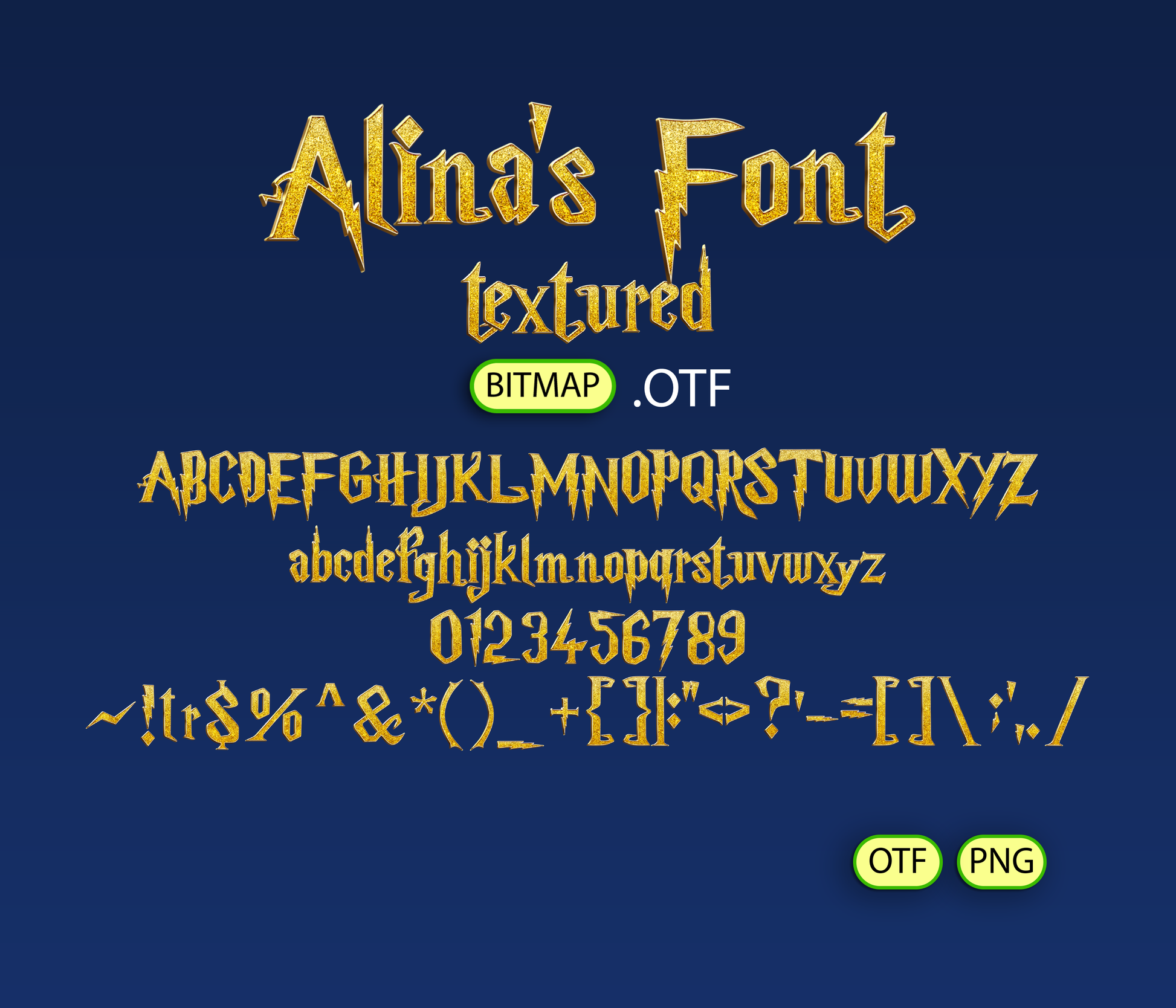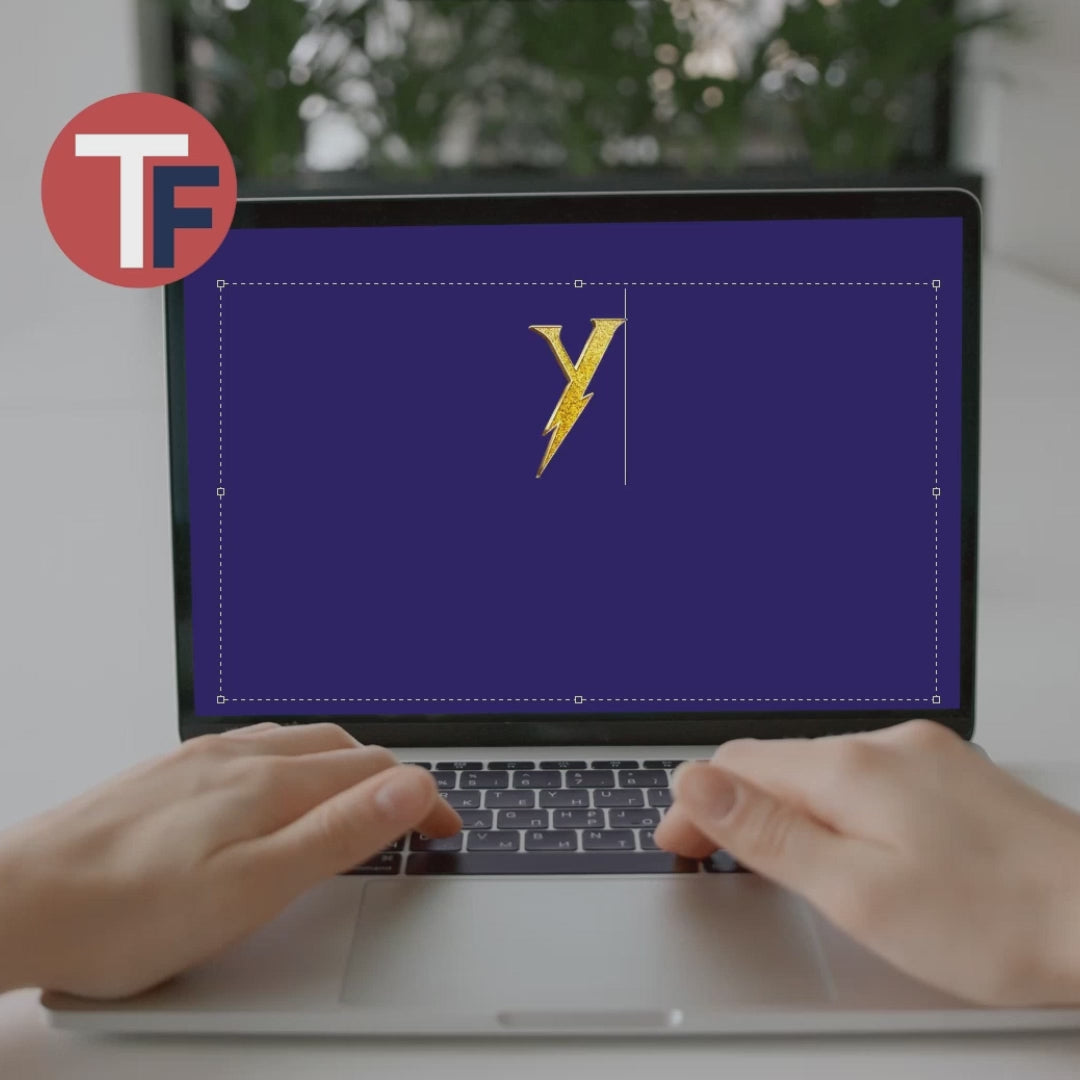
Wizarding Academy Font Textured
Wizarding Academy Legendary School Witchcraft Font Textured
Enter the magical and mysterious world of a legendary school of witchcraft and wizardry with our Wizarding Academy Inspired Font, a typeface that encapsulates the enchantment and adventure of a beloved fantasy series. This font is not just a set of characters; it's a gateway to a universe filled with spells, magical creatures, and wondrous adventures. Ideal for fans of magical tales, fantasy lovers, and creative minds, this font allows you to weave a little bit of magic into every design.
What font is the Wizarding Academy?
It's a meticulously crafted typeface that resonates with the charm and mystique of a magical world. Each character in this font has been designed to reflect the gothic and magical aesthetic synonymous with an enchanted castle and its lore. The font features a comprehensive character set, including alphabets, numbers, and special symbols, ensuring you have the complete toolkit to create spellbinding and captivating designs.
What Can You Do With The Wizarding Academy Font?
The Wizarding Academy Inspired Font turns ordinary text into enchanting script. Its versatility makes it perfect for a variety of personalized projects and merchandise inspired by magical universes. Here are some specific uses:
- Enchanted invitations for fantasy-themed events
- Customized apparel and accessories for magic enthusiasts
- Unique designs for wizard-themed merchandise
- Magical bookmarks and stationery for book lovers
- Themed website and blog designs for fantasy fans
- Personalized gaming streams or YouTube channel art
- Handmade gift tags and greeting cards for fellow fans
- Magical world-themed room decor
- Custom journal and diary covers for aspiring wizards and witches
- Personalized wall art and posters for fantasy enthusiasts